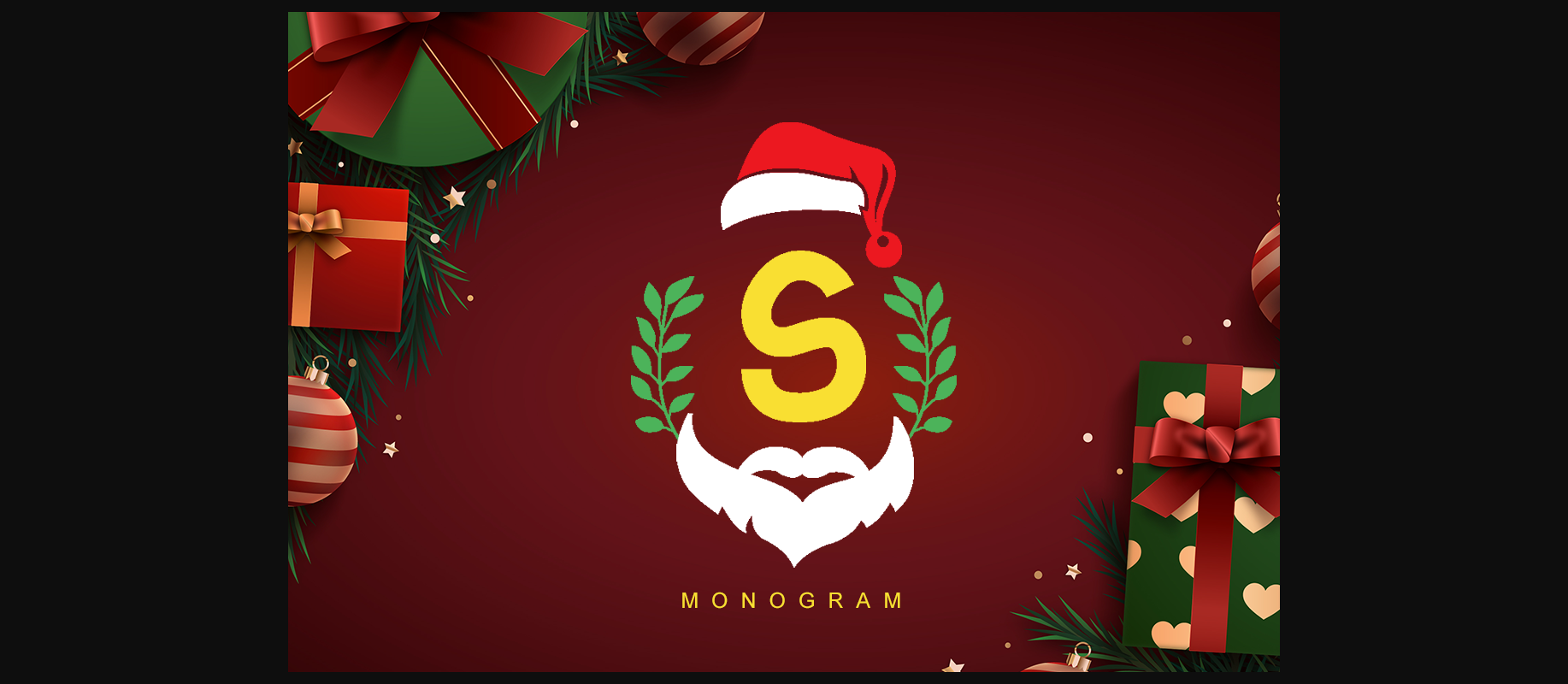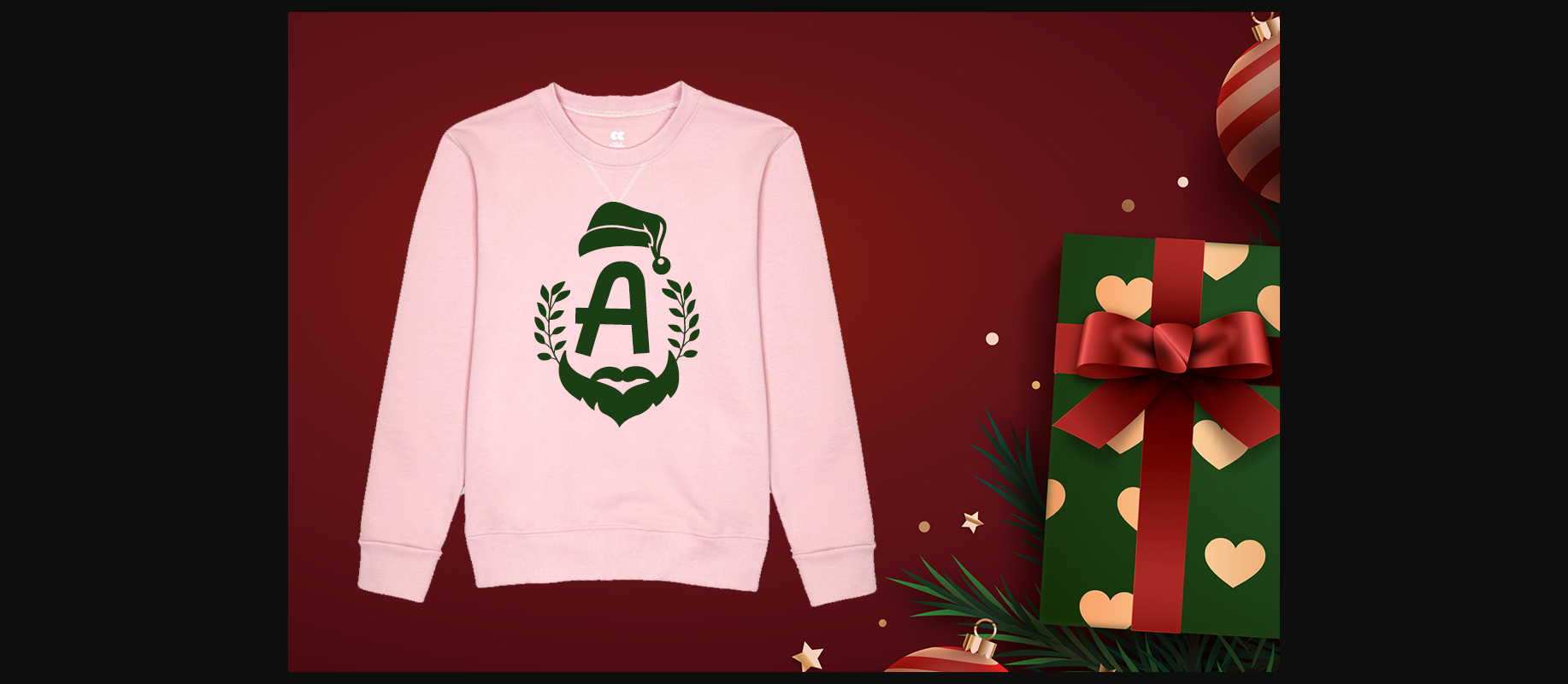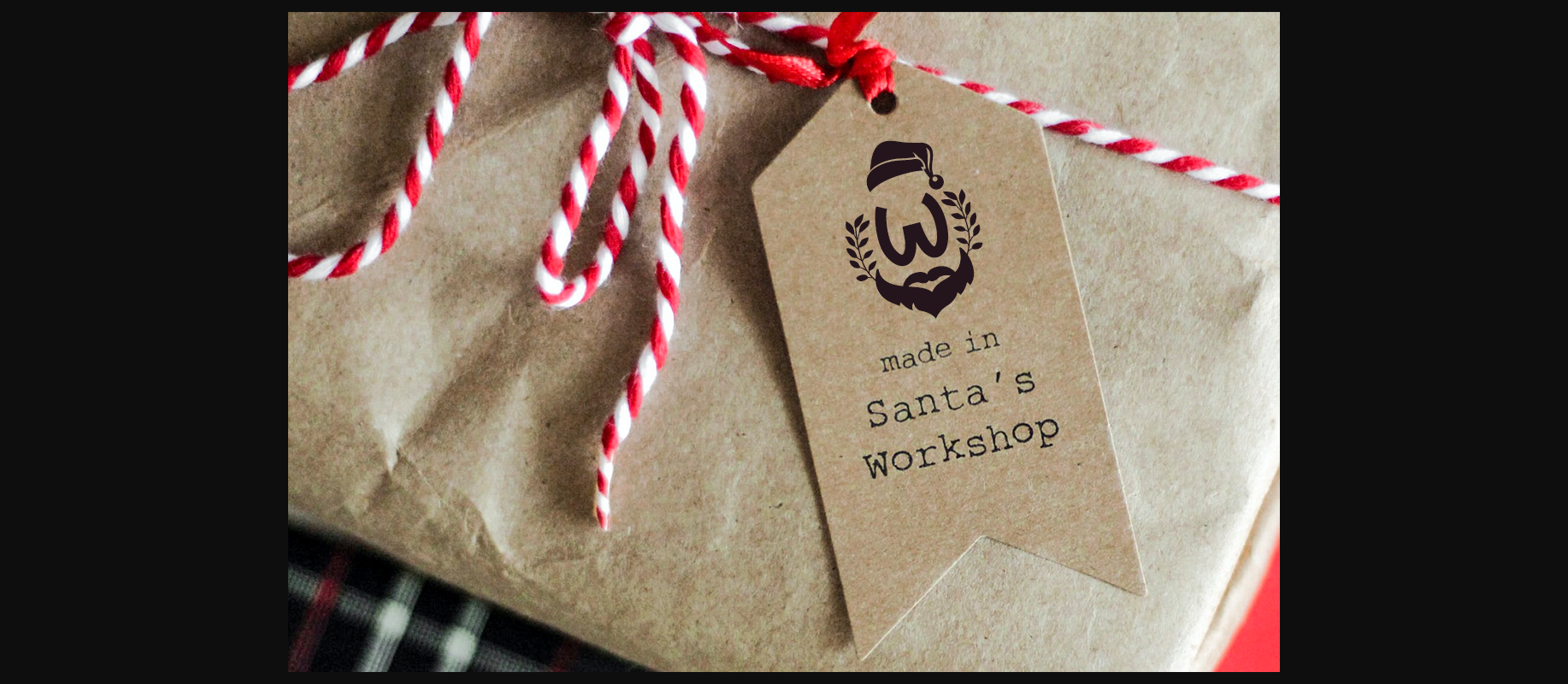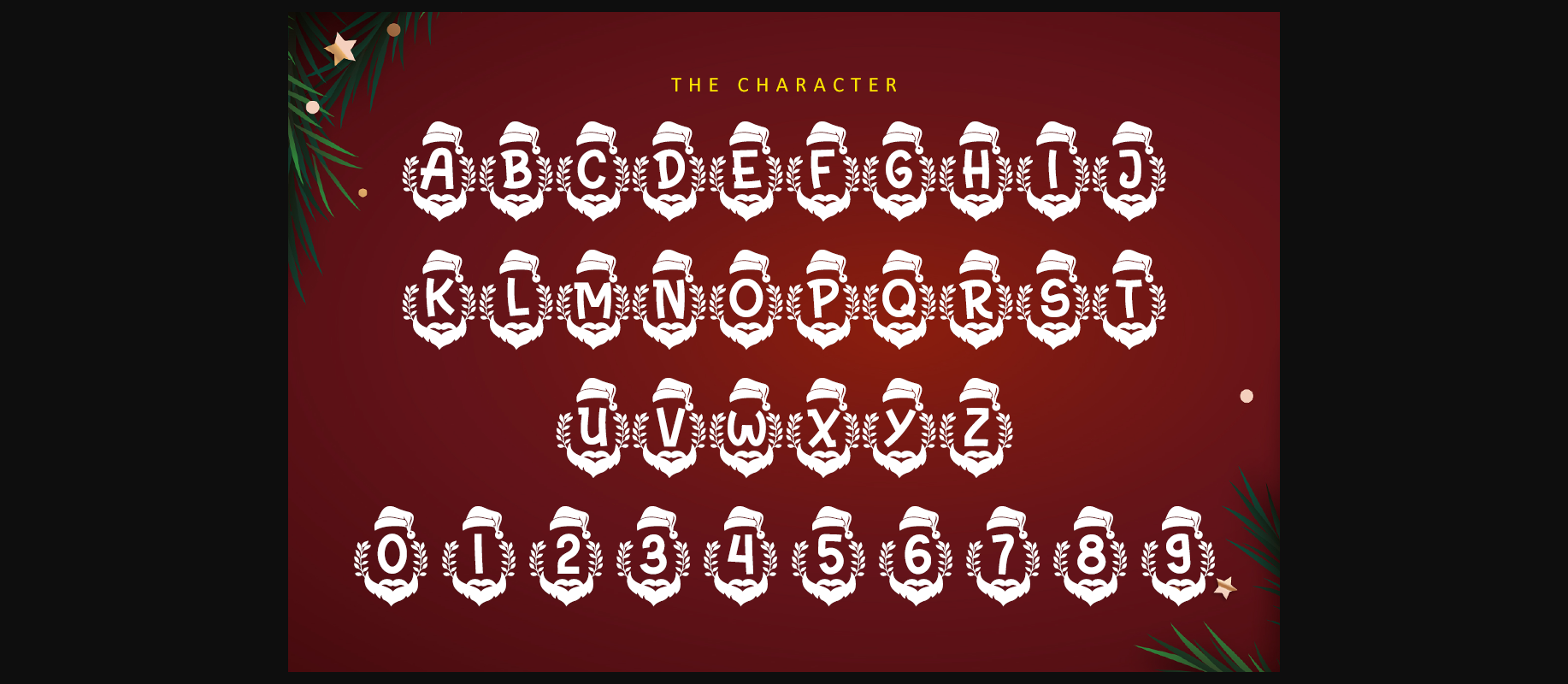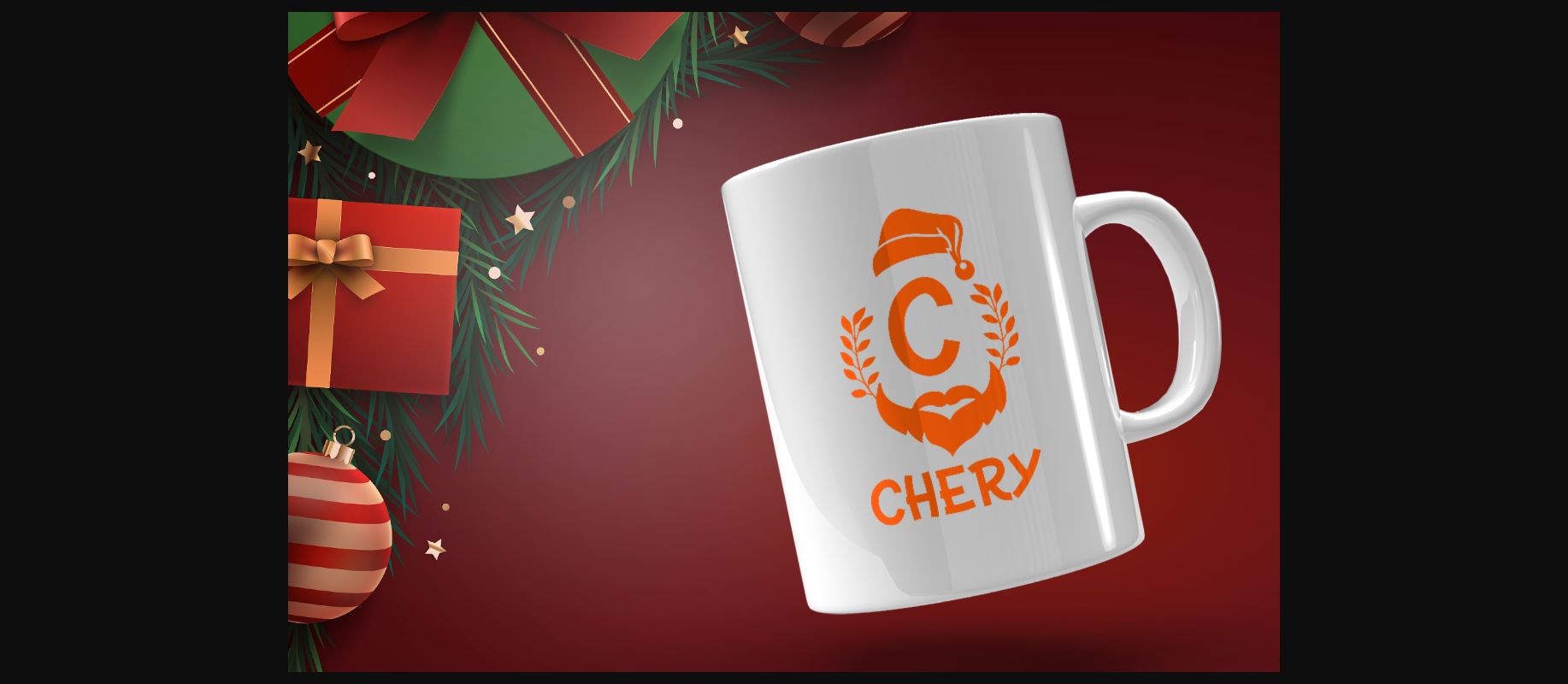
Santa Monogram Font
About Santa Monogram Font
Santa Monogram is a fun and wintery decorative font. Add it to each of your festive designs and notice how they come to life.